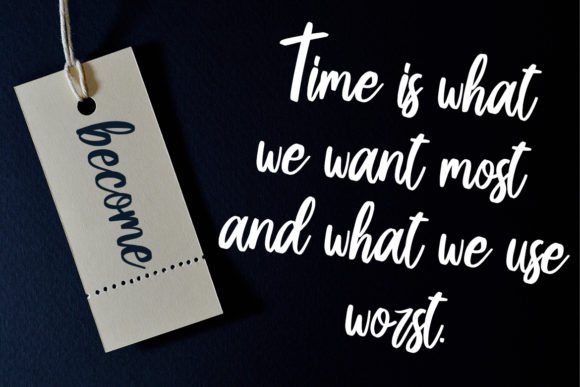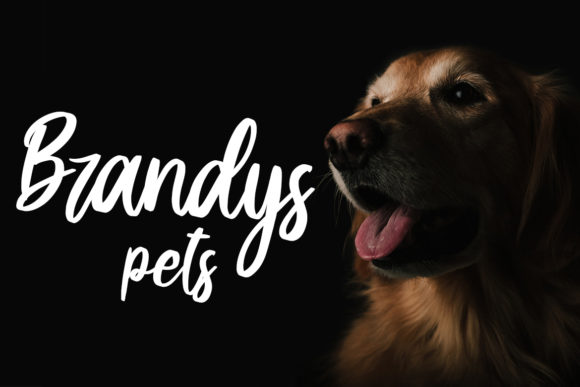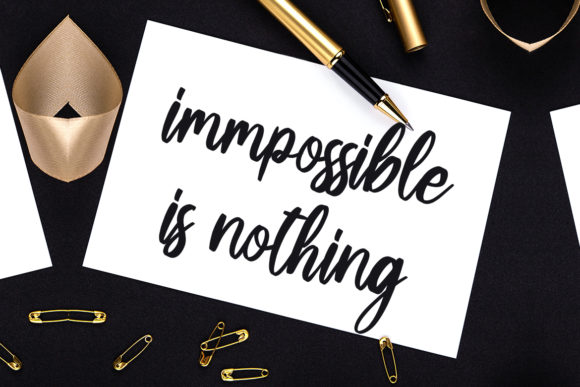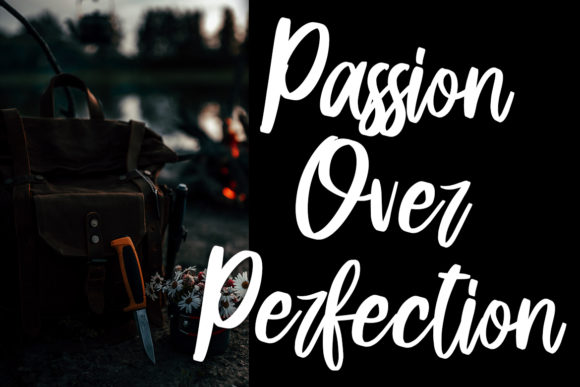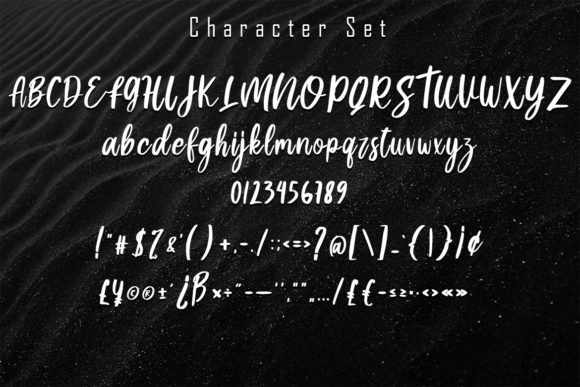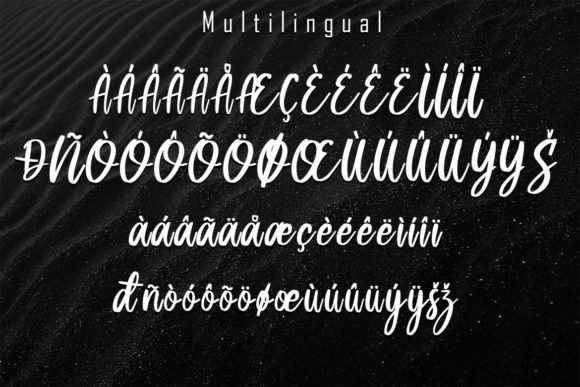
Introduction to Machity Font
Machity is a whimsical paint brushed handwritten font, featuring a nice flow.
It can be used for various purposes such as logos, wedding invitations, headings, t-shirts, letterhead, signage, labels, news, posters, badges and so much more .